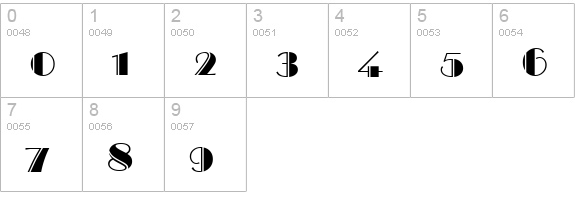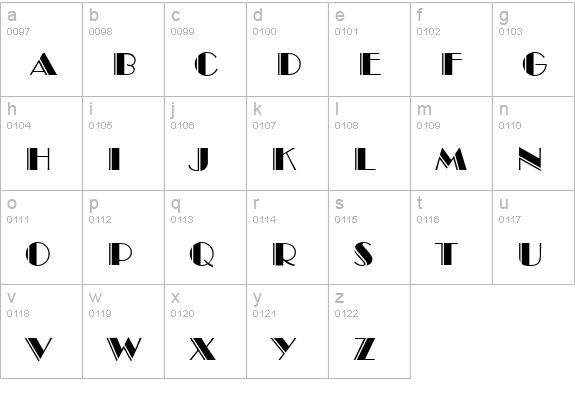
Broadway-Engraved-Caps-Regular Font Details
Broadway-Engraved-Caps-Regular is the standard, neutral variant in the Broadway typeface family \xE2\x80\x94 well suited to general body text, paragraphs, and standard typographic work.
Broadway-Engraved-Caps-Regular font is a classic typeface that exudes elegance and sophistication. Its engraved style adds a touch of vintage charm to any design project. This font is perfect for creating eye-catching headlines, signage, and invitations. With its bold and distinctive look, Broadway-Engraved-Caps-Regular font is sure to make a statement. The best part? Broadway-Engraved-Caps-Regular font is available for free download at FontsMarket.com. Whether you're a designer looking to add a unique flair to your work or a DIY enthusiast searching for the perfect font for your next project, this font is a must-have in your collection. Download Broadway-Engraved-Caps-Regular font today and start creating stunning designs with ease.